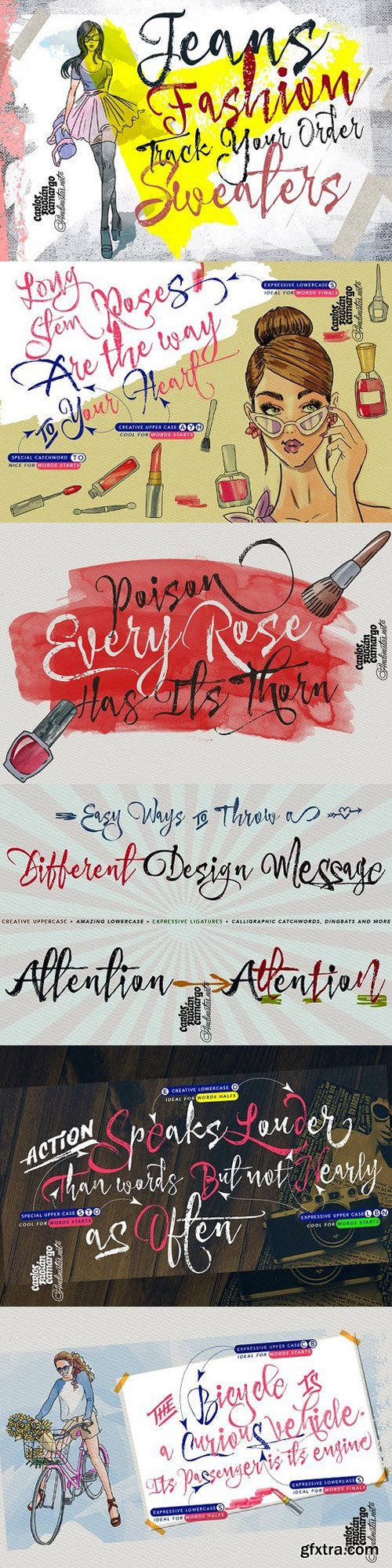
Makeup Script Fonts
Andinistas.net presents ?Makeup Script?. Expressive hand-made typography to design sentences with high textured impact; has 4 creative tools. Our priorities are continually updated and we prefer to use the elevator since taking the stairs is a very long process. If you see a long text, you close it and look for something shorter. For quick calligraphy you need to consume hours and hours of learning, discomfort and effort. Think of calligraphic words or phrases to write about a photo no matter how expressive it may be. Try to write quickly with signature style for logos, labels or packaging for clothes, suitcases, shops, malls, department stores, etc.
• Makeup Script (238 glyphs): It is a script with vibrant fleeting strokes that form capital letters, lowercase letters, numbers and character sets and extended punctuation for Central, Eastern and Western Europe.
• Makeup Alternates (238 glyphs): Offers new script possibilities, different from uppercase, lowercase, numbers that work at the beginning or end of words, in a way that your design will look more real and calligraphic.
• Makeup Swashes (238 glyphs): These are tiny script letters that reinforce the idea of fast binding between handwritten letters that will fill your design or concepts with power and expressiveness through multiple textured contours.
• Makeup Extras (80 glyphs): Here you'll find over 70 exciting, hand-crafted decorations that are ideal for underlining your ideas written in Makeup.